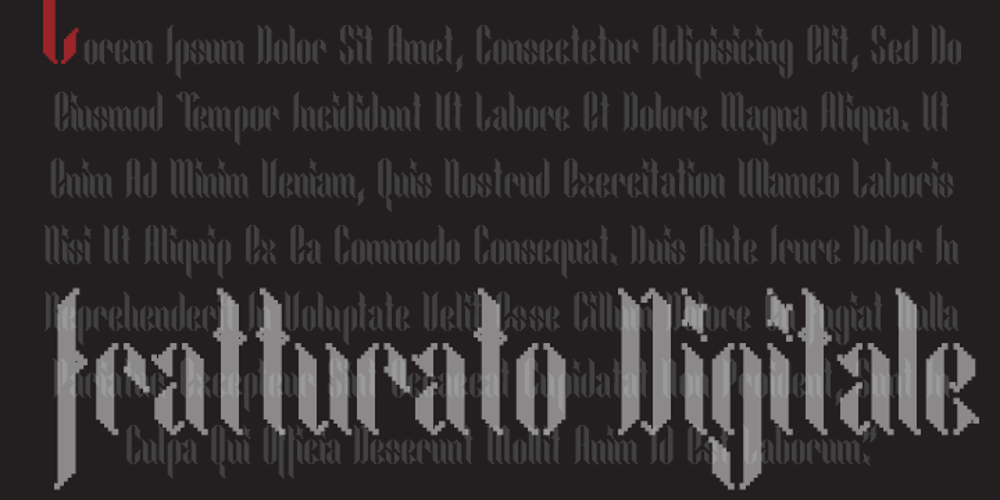
Fratturato Digitale Font Family was designed by Wilson Thomas and published by Funk King. Fratturato Digitale contains 1 styles and family package options. Fratturato Digitale is a contemporary modular take on a fraktur-style font.